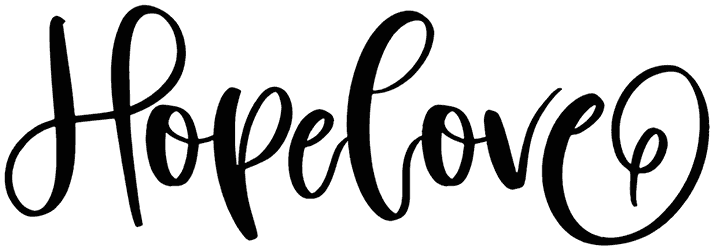
Hopelove Font
The Hopelove is an awesome romantic font that immediately grabs your attention. This font has a playful form that seems entertaining to the viewers. You may use the Hopelove font in several situations, such as magazine covers, business cards, and postcards, as it is offered in two versions, expanding your selection range.
Moreover, this stylish font’s letters have a curvy shape with smooth edges that sends a pleasant vibe. So do not hesitate to download it and impress your audience.